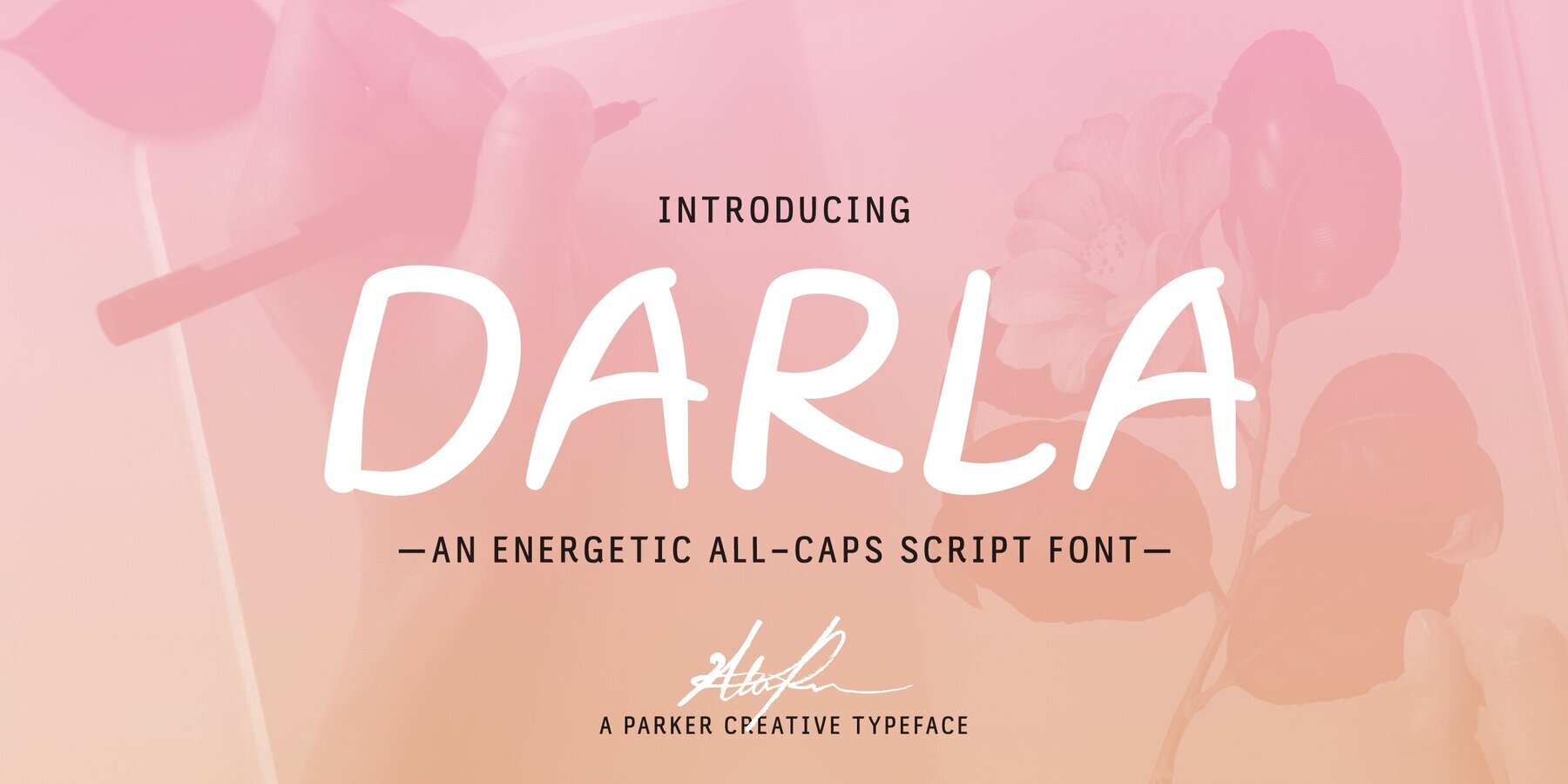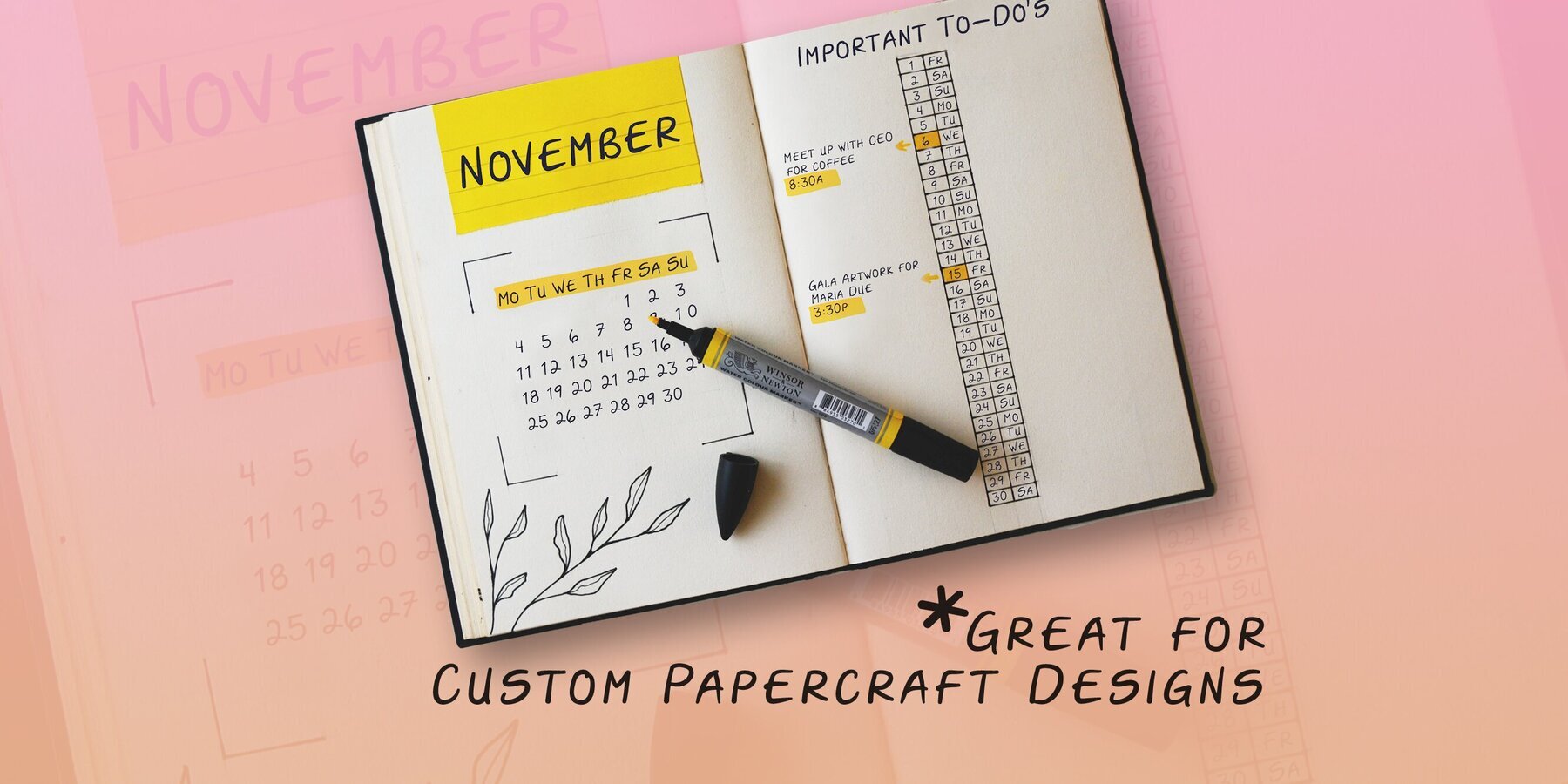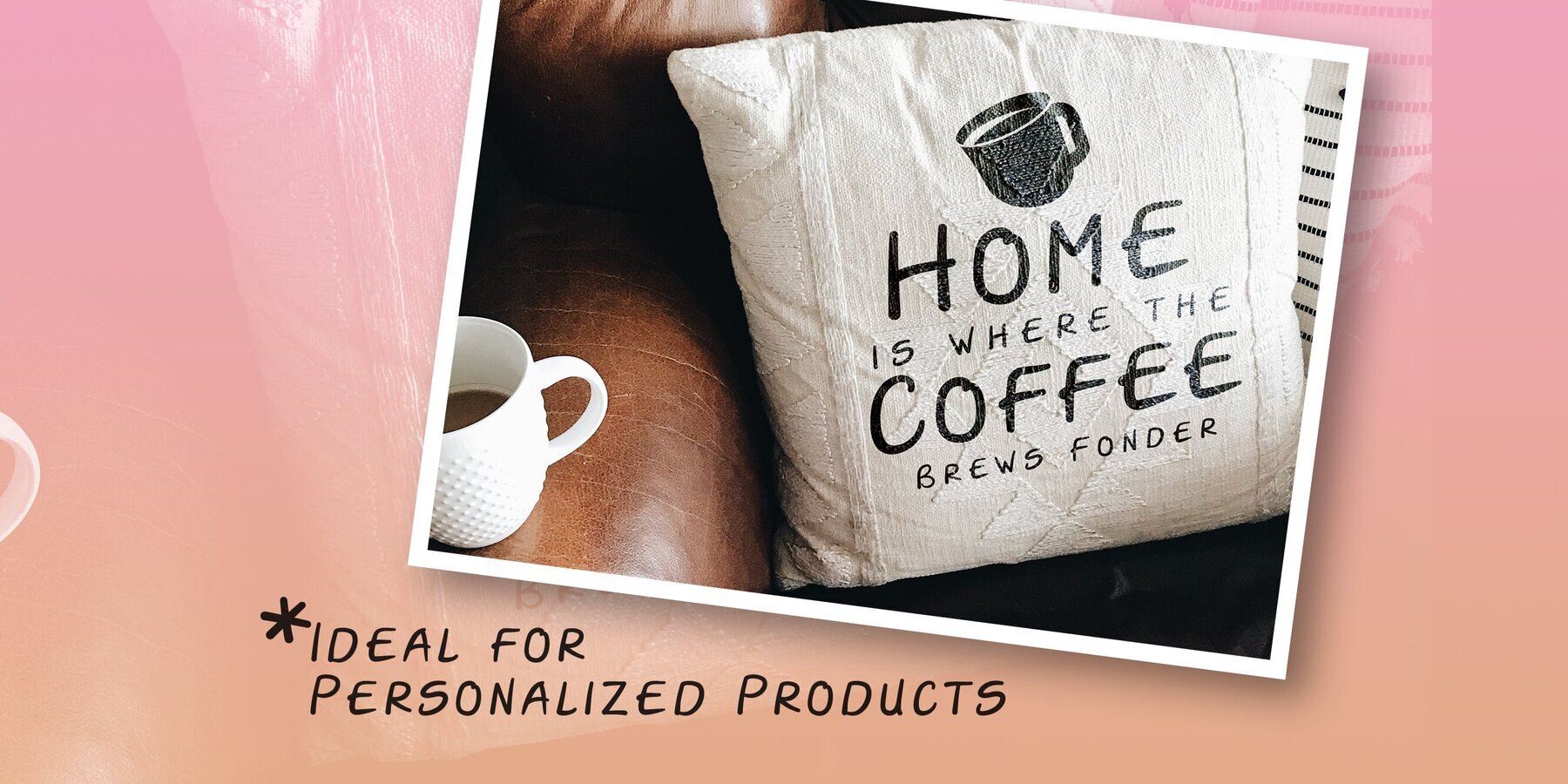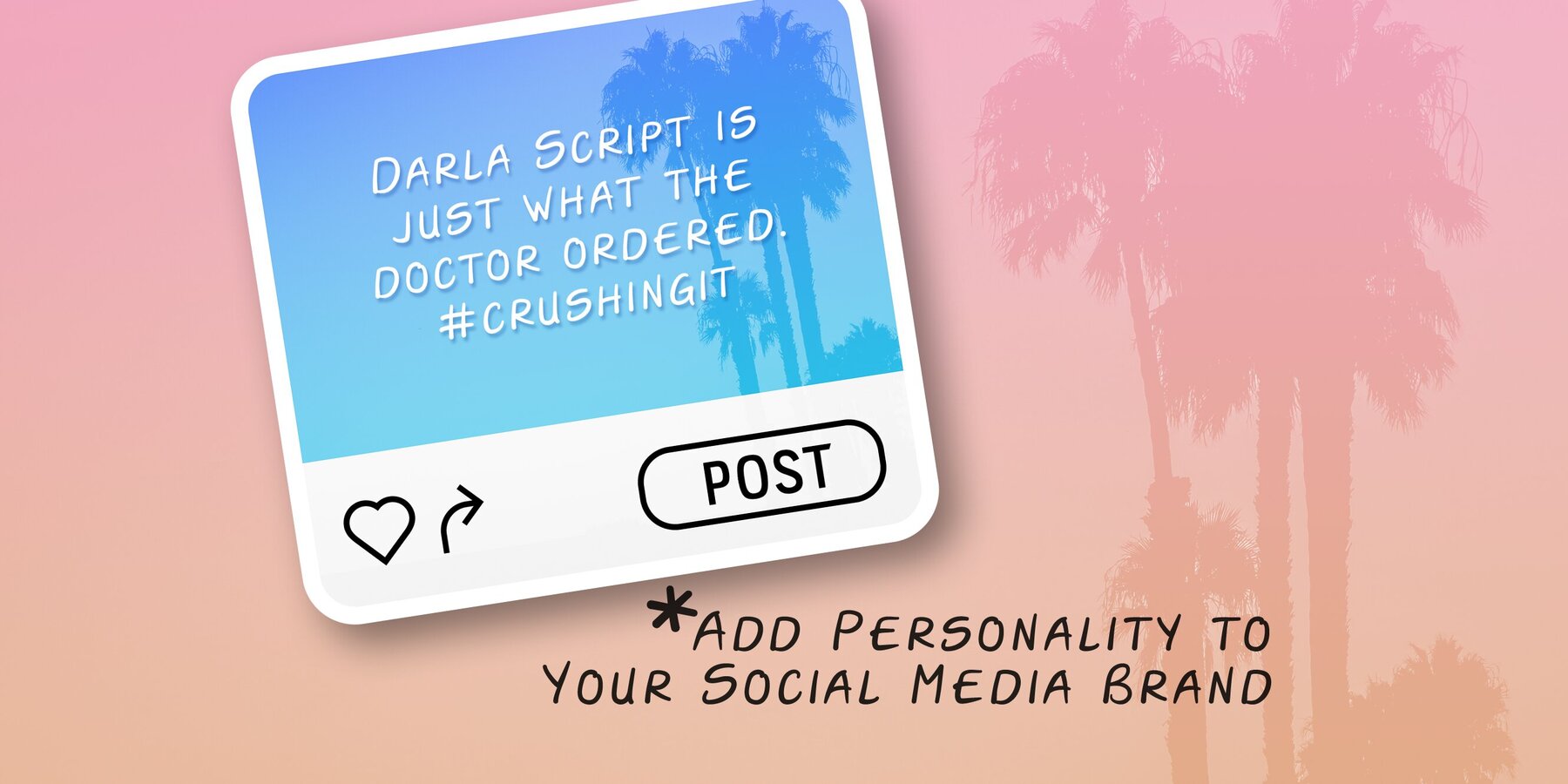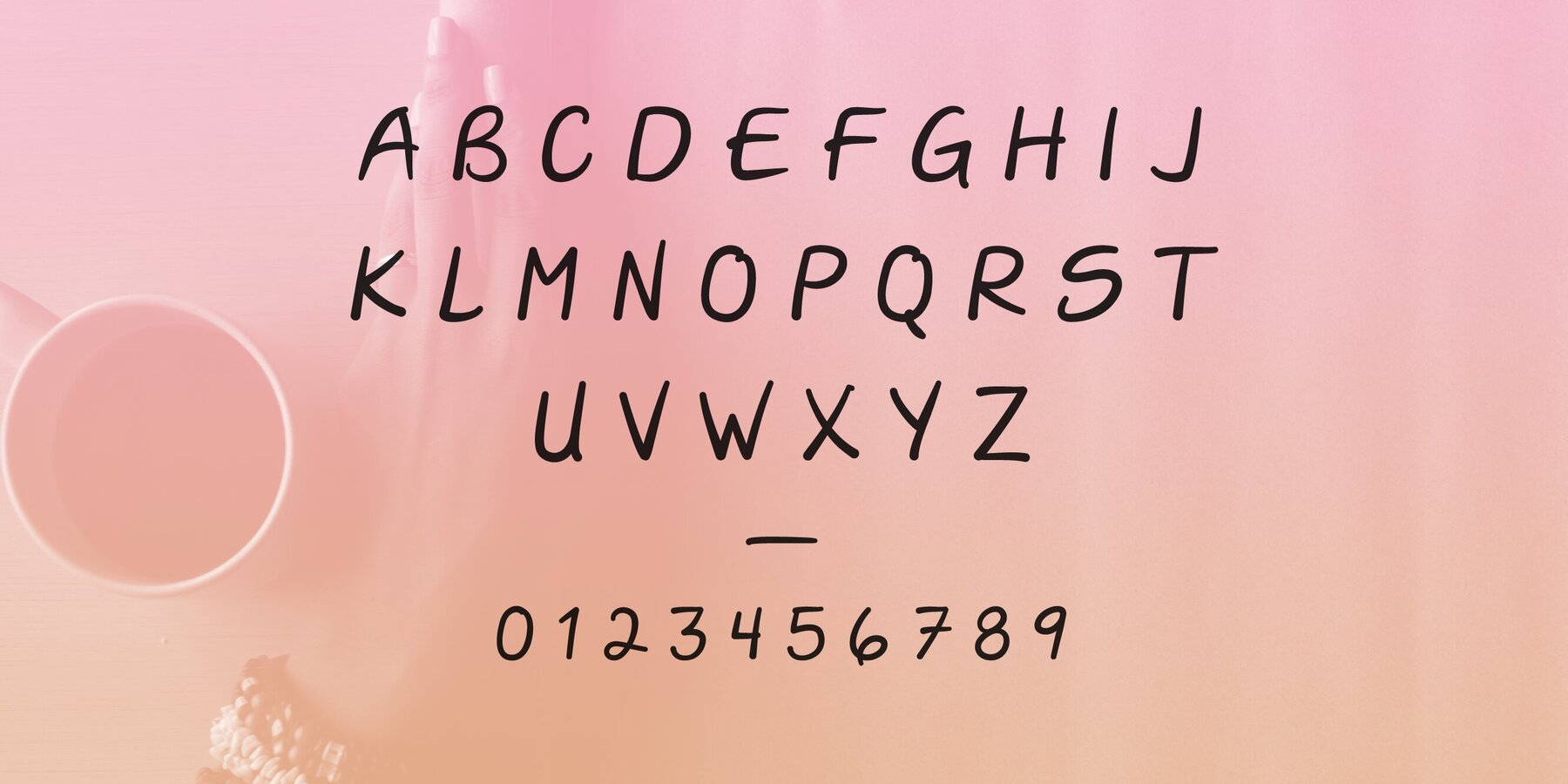
Darla Script Font
Darla Script Regular
Darla Script delivers a distinctive, feminine touch with its all-caps, handwritten style. Every letter features custom line work, creating a lively and modern effect that adds personality to your projects. The relaxed, freehand appearance gives your designs a charming and approachable look, letting content feel both stylish and accessible.Darla Script: A Playful All-Caps Handwriting Font
Darla Script is ideal for projects that need a unique voice. Its unconventional style stands out in logo design, graphics, social media content, greeting cards, and other creative materials. The font’s fluid strokes allow your message to appear inviting and visually engaging whether viewed on print or digital platforms.Key Features